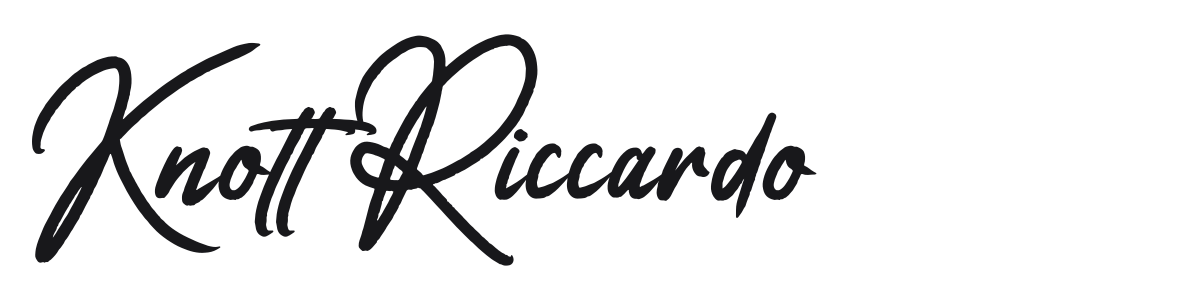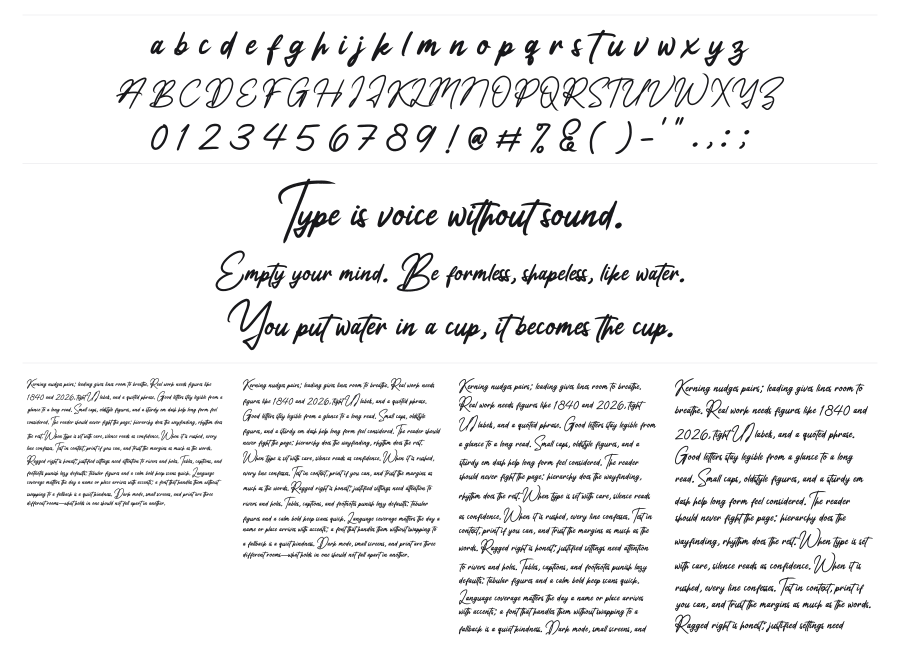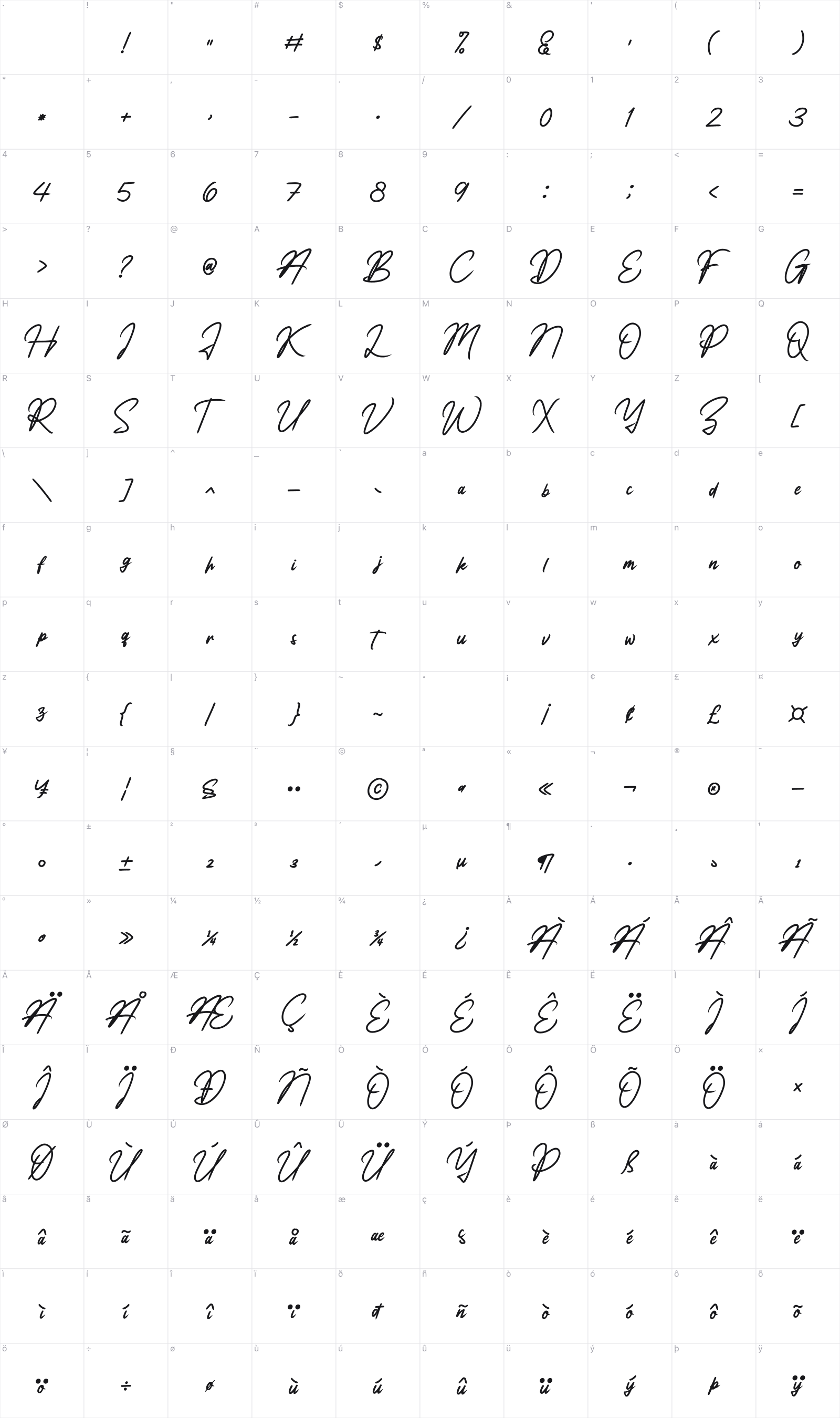
Knott Riccardo
by Integritype Studio
Knott Riccardo is a bold brush script with the loose, ink-soaked energy of hand-painted lettering. High stroke contrast between thick downstrokes and wispy thin strokes gives each word a natural rhythm, with letters connecting in a fluid cursive stream. It reads as confident and relaxed at the same time, the kind of script that works well on product packaging, social content, and brand identity.